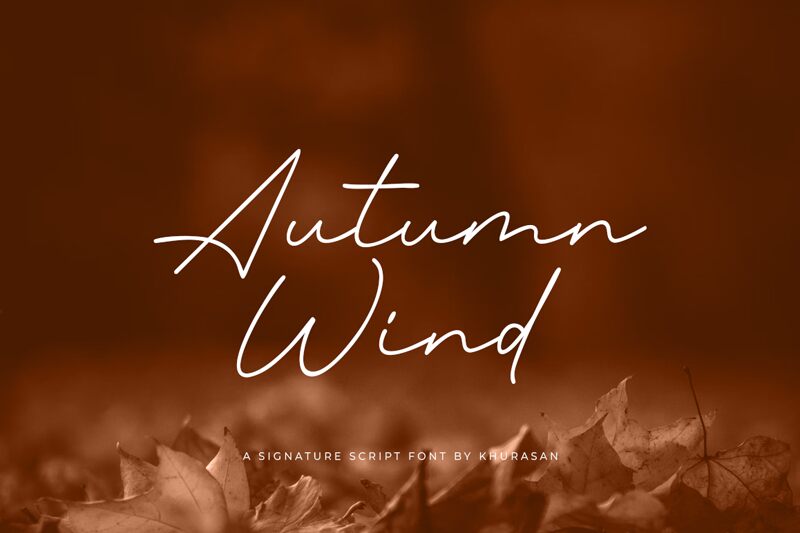
Autumn Wind
Autumn Wind, a delightful handwritten font by Khurasan, brings a touch of whimsy to any project. Its light weight lends an airy and graceful quality to designs, perfect for capturing the essence of nature-inspired themes.
Whether used for wedding invitations, greeting cards, or packaging designs, this font effortlessly adds a personal and intimate touch. Autumn Wind's charmingly imperfect strokes evoke a sense of warmth and nostalgia, making it an ideal choice for crafting cozy book covers or rustic farmhouse branding.
Let Autumn Wind inspire you to create enchanting designs with its playful yet elegant style.